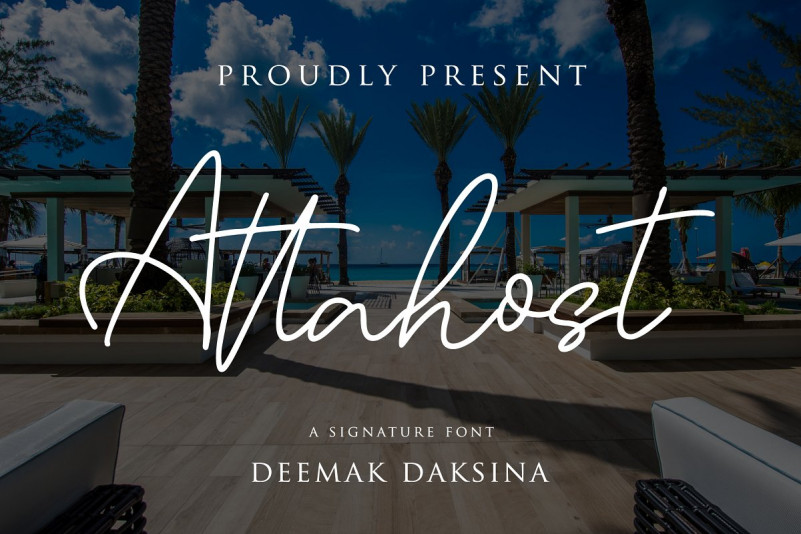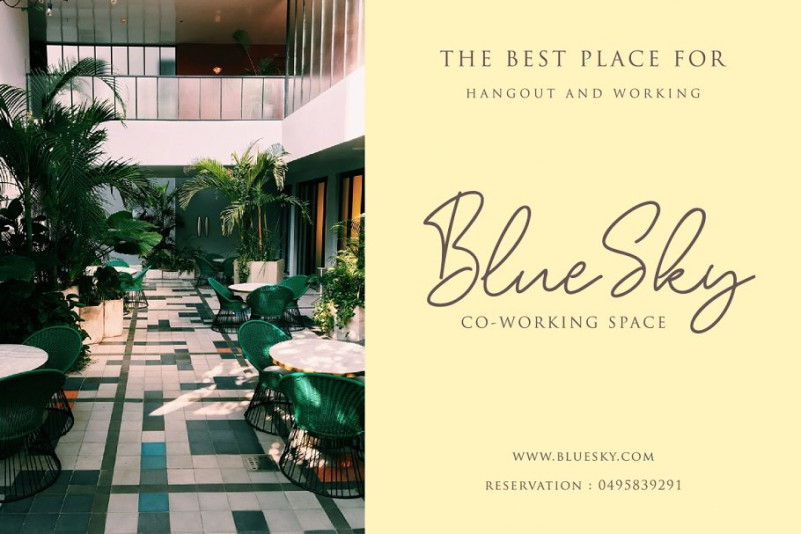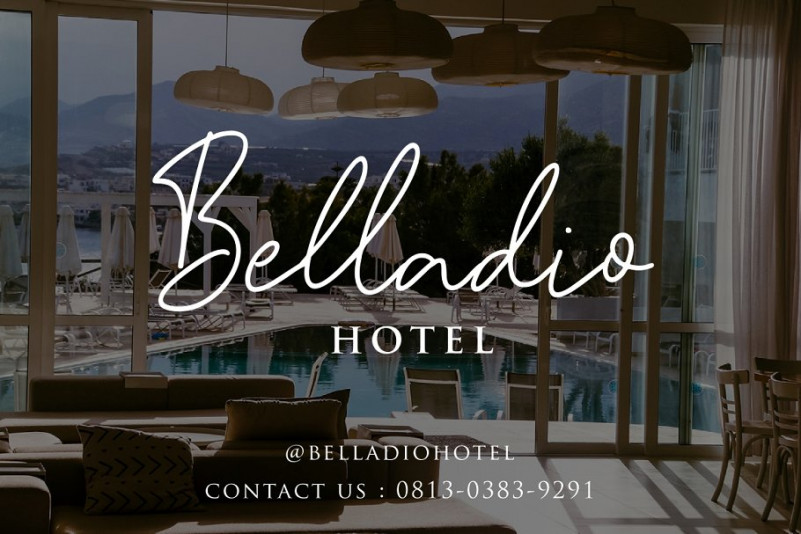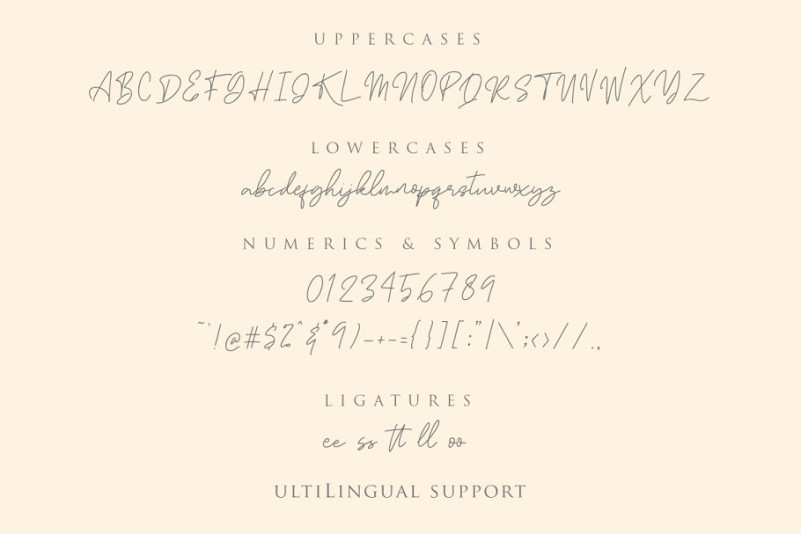
Attahost Signature – Demo Font
This is a font with a touch of modern signature style useful to beautify every sentence written, designed and shared by Deemak Daksina. Introducing Attahost Font. Attahost Signature is simple and elegant signature that we designed to be looks really good on big size such as billboard, name sign, etc. Also we make the style to be applicable in these category : resort, poster, fashion, label, packaging, hotel, and lifestyle.